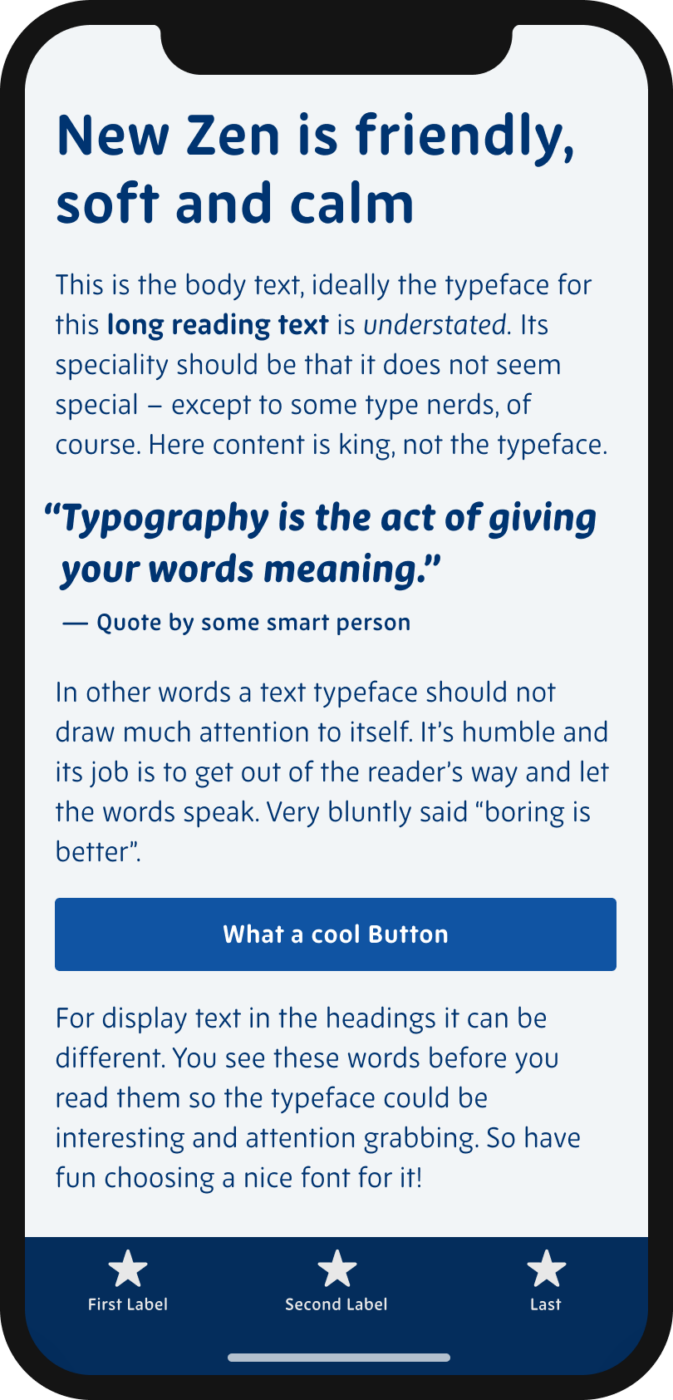
New Zen stands out for its approachability, friendliness and warmth. This sans-serif has a round terminal, elegant proportions, and open shapes. In the lighter weights, the stroke almost seems even. The bolder it gets, the more contrast is introduced.
My thoughts on New Zen
I became aware of the foundry Newly, when Miles Newlyn commented on one of my FontFriday recommendations. That’s when I discovered their beautiful catalogue that’s covering several typographic styles, executed with precision and heart. New Zen stood out to me for its approachability, friendliness and warmth. This sans-serif has a rounded terminal, elegant proportions, and open shapes. In the light and regular weights, the stroke seems even. The bolder it gets, the more contrast is introduced. It becomes livelier, showing some tradition calligraphic stress while remaining its friendly blobbiness.
elegant & open. It will carry serious subject matter with heart. Contrasting & lively
The first line is set in New Zen Thin showing its elegance. The second line displays the beauty and friendliness of this almost upright italic. The third line set in Extra Bold is contrasting and confident.
Recommended Font Pairing
Looking for a playful, sensual companion for New Zen? Choose upright italic Sansita. Or the charming script typeface Courgette.
1. Regular version: Look at that smilin’ hEart, E. It’s effortless, it feels trustworthy. Dancing I, legs are in the waltz flow.
Light version: we have an emotional couple G and A, perfect chemistry! Even it’s light, it feels more grown-up and I love when T is straight, without curves.
But I’m more prone to a regular version. It’s versatile and applicable. It feels reliant buddy. Friendly. The only thing which doesn’t go is naming. Pardon my professional distortion.🤔 I’m all about identity naming, taglines, creative wording. This one is not total zen. Yes, it owns tranquility, but not so calmness.
1. “Look at that smilin’ hEart, E. It’s effortless, it feels trustworthy. Dancing I, legs are in the waltz flow.” Brilliant, Jana! Yeah, the name is ab bit misguiding, since I would not associate with Zen or what I think Zen is, either.